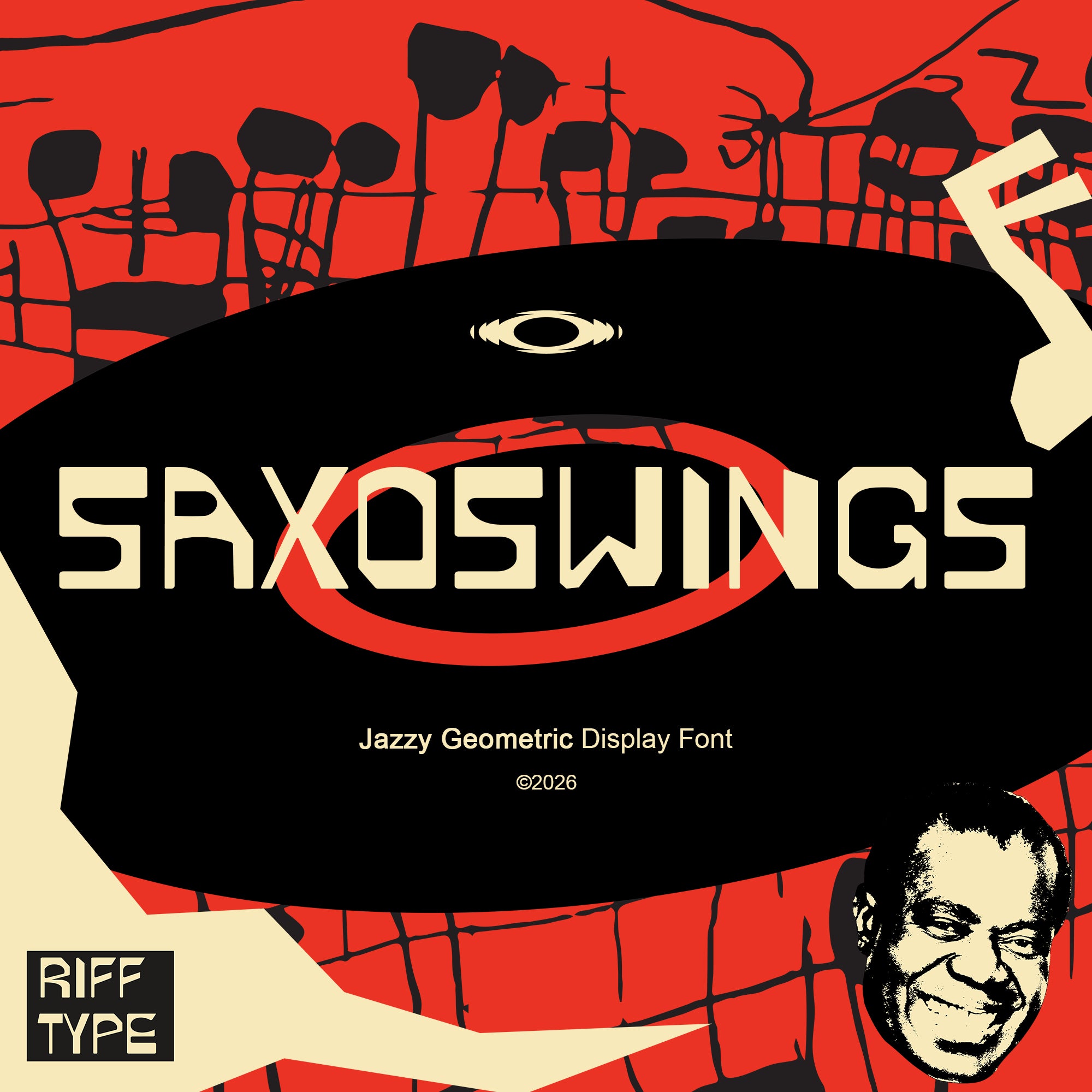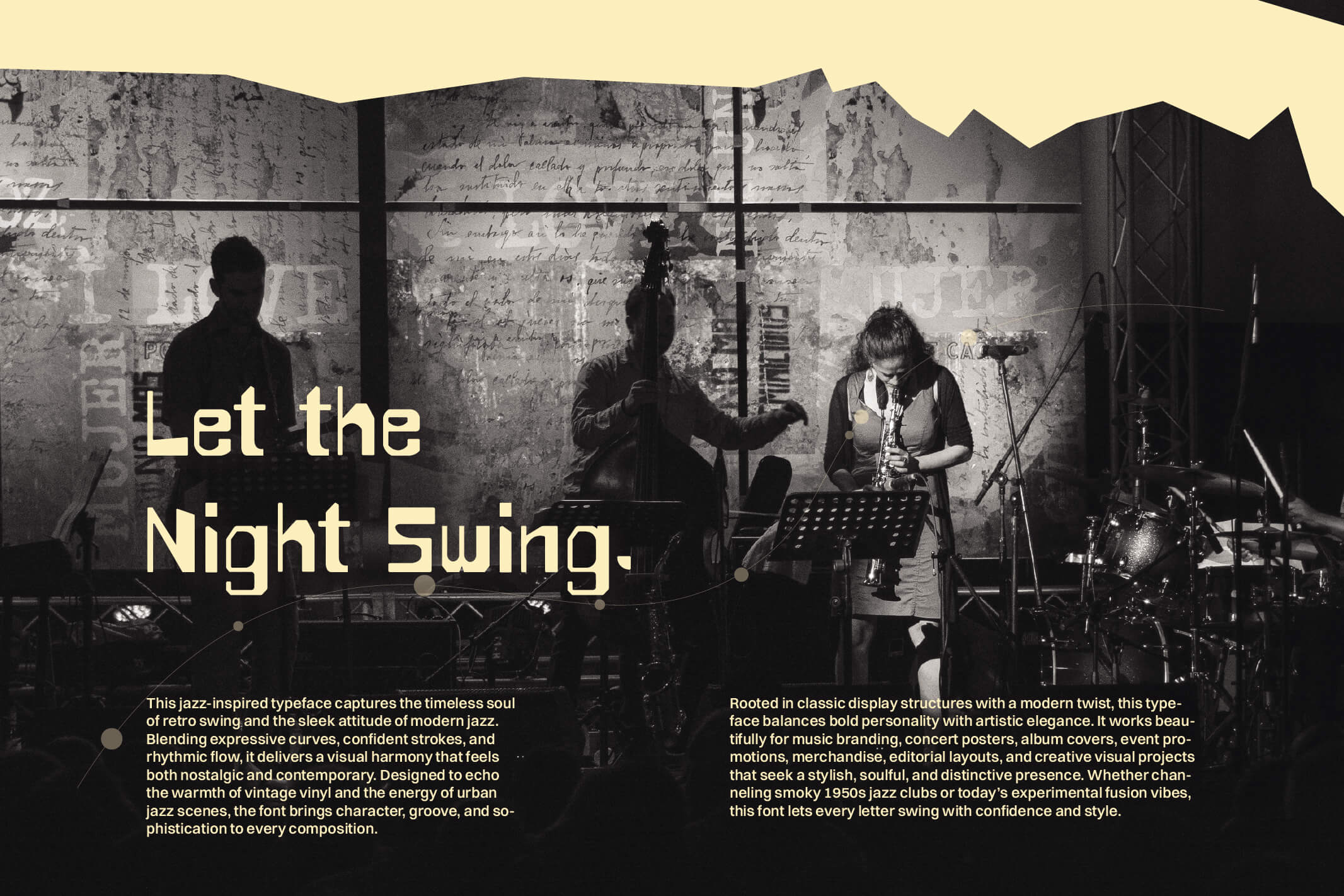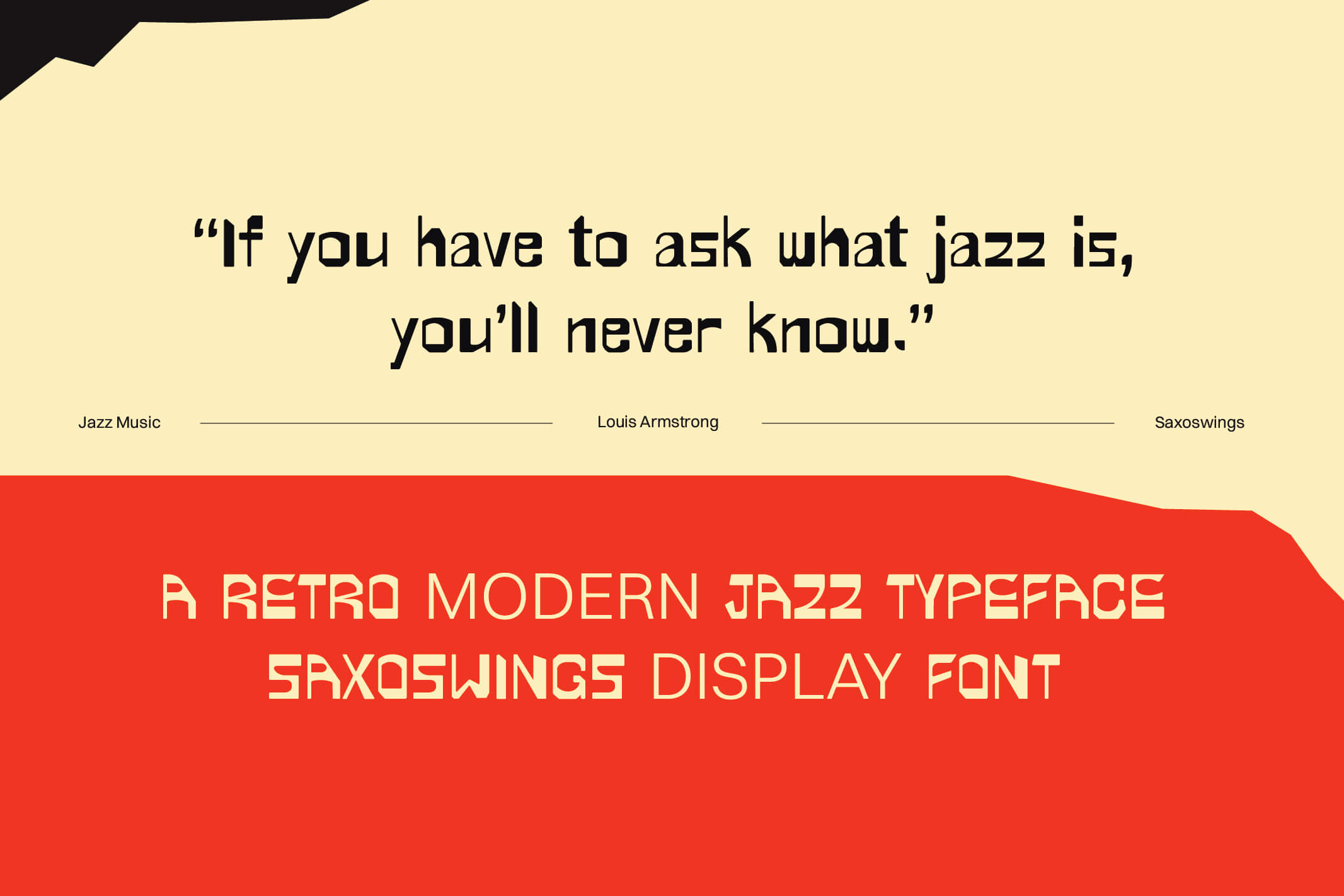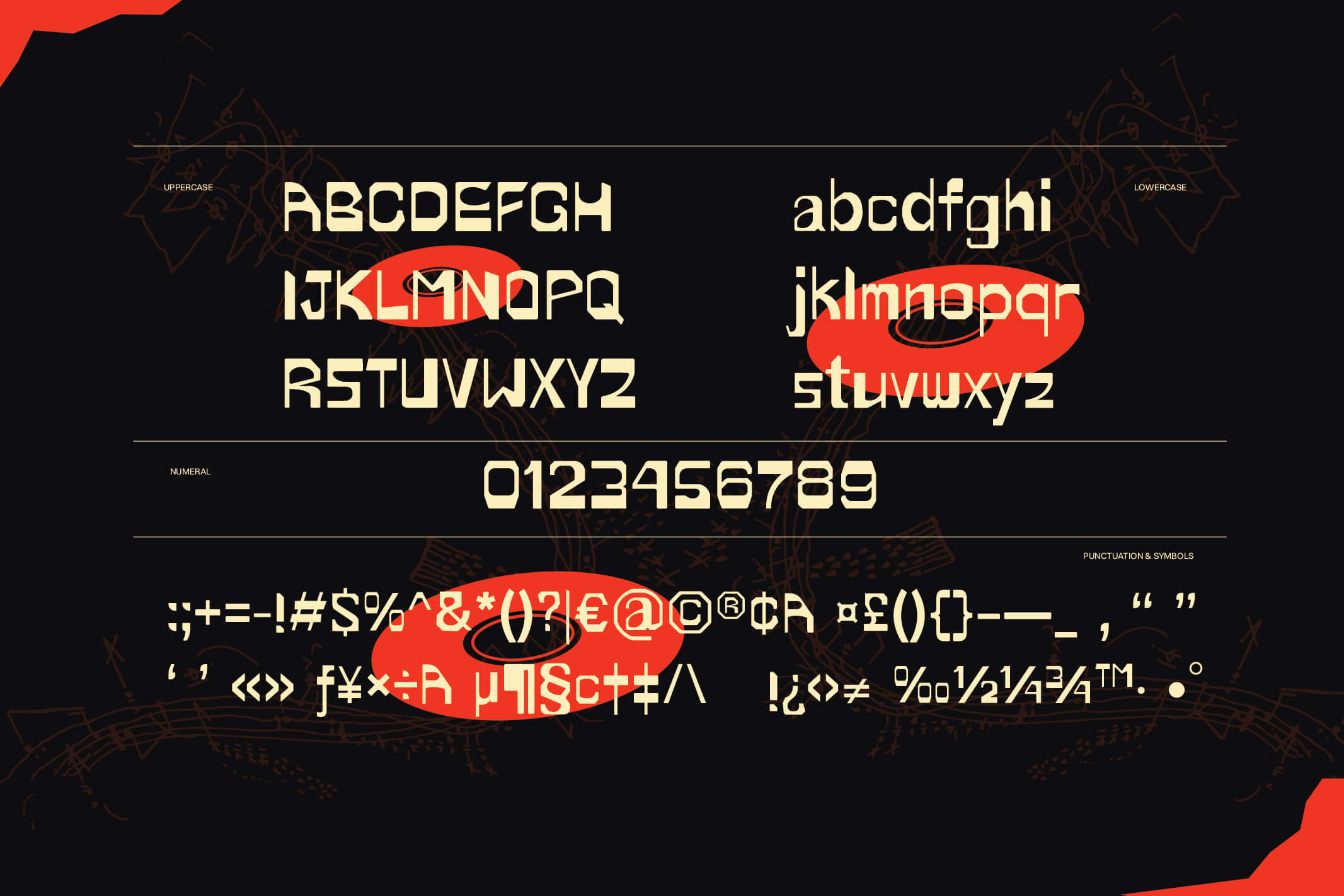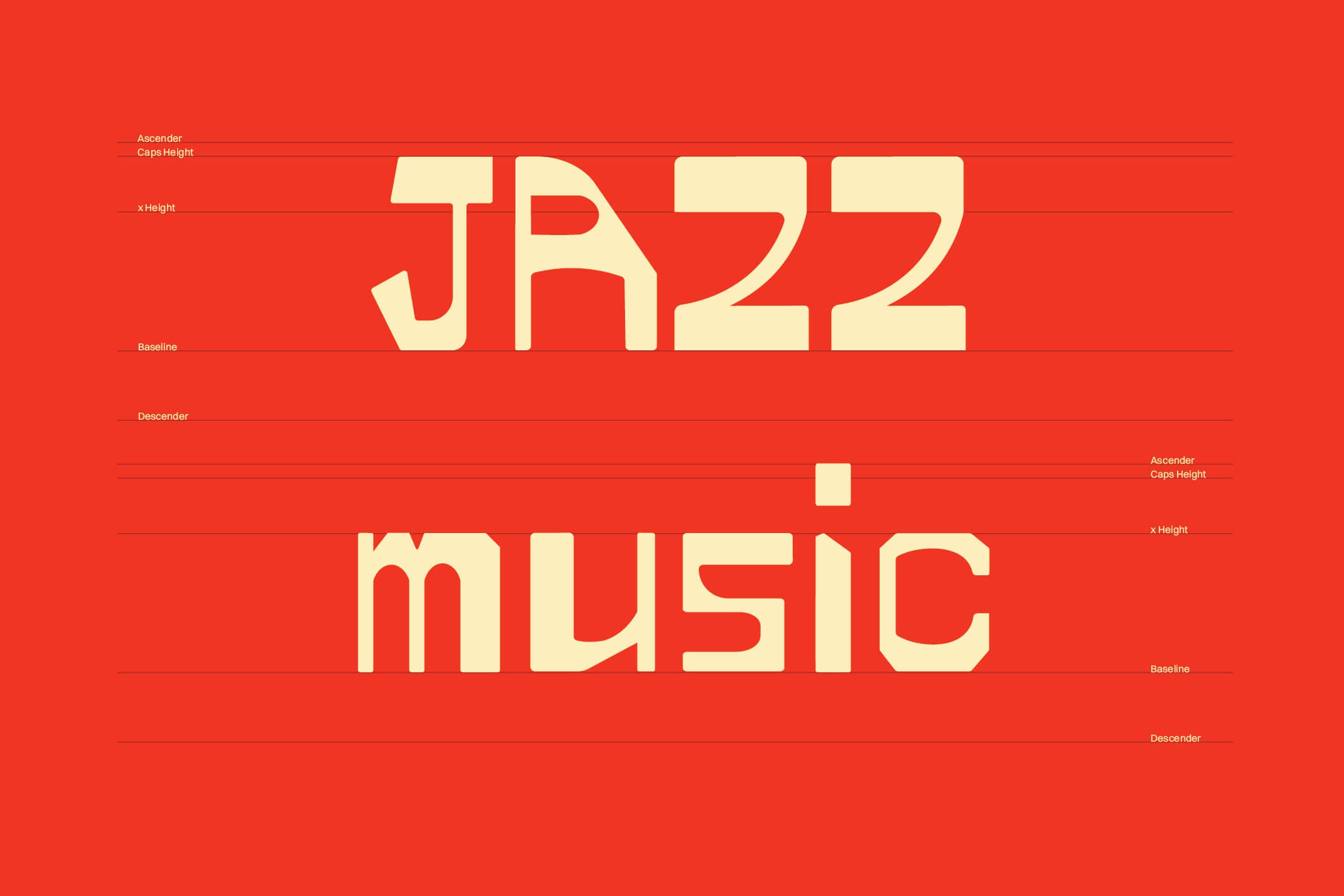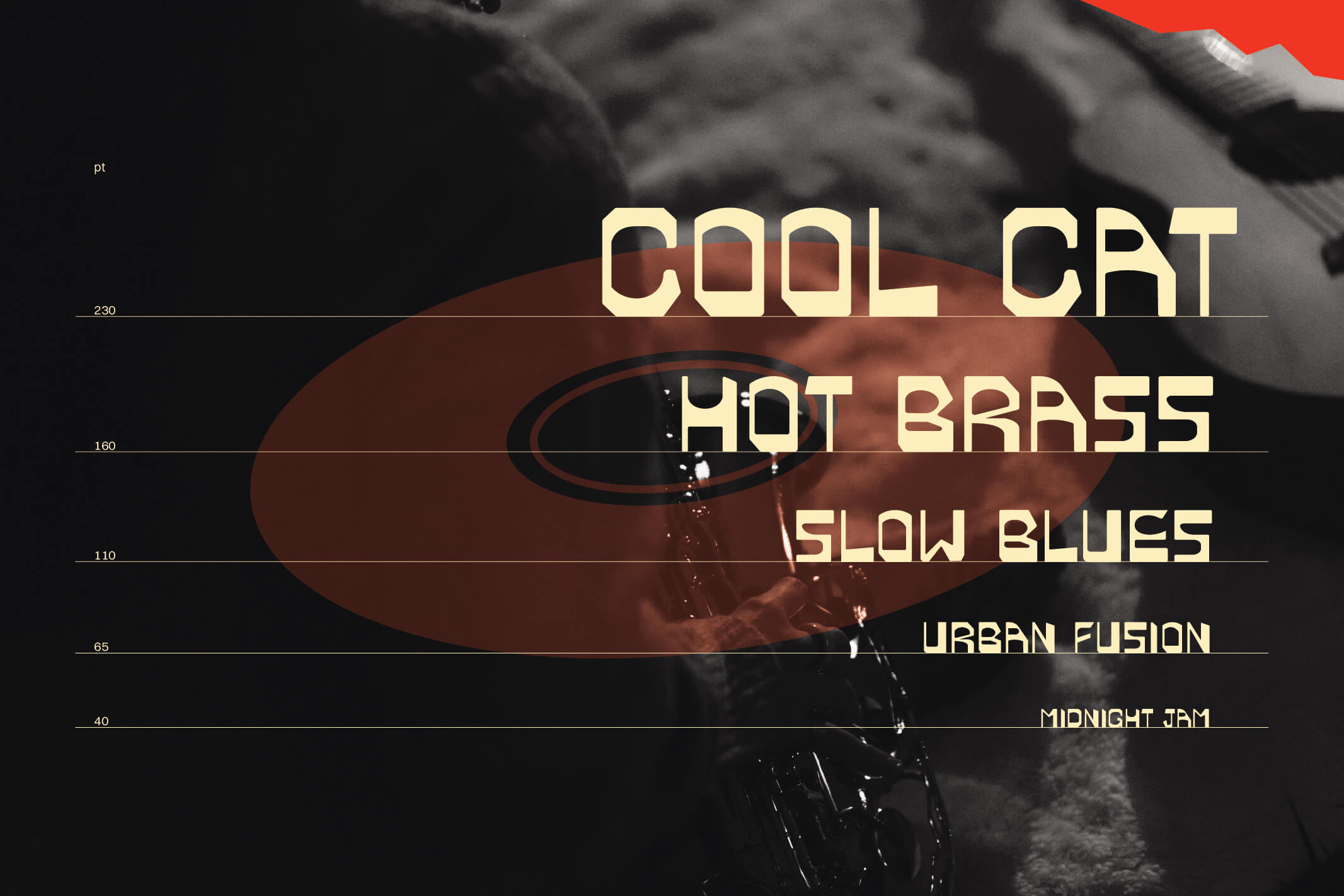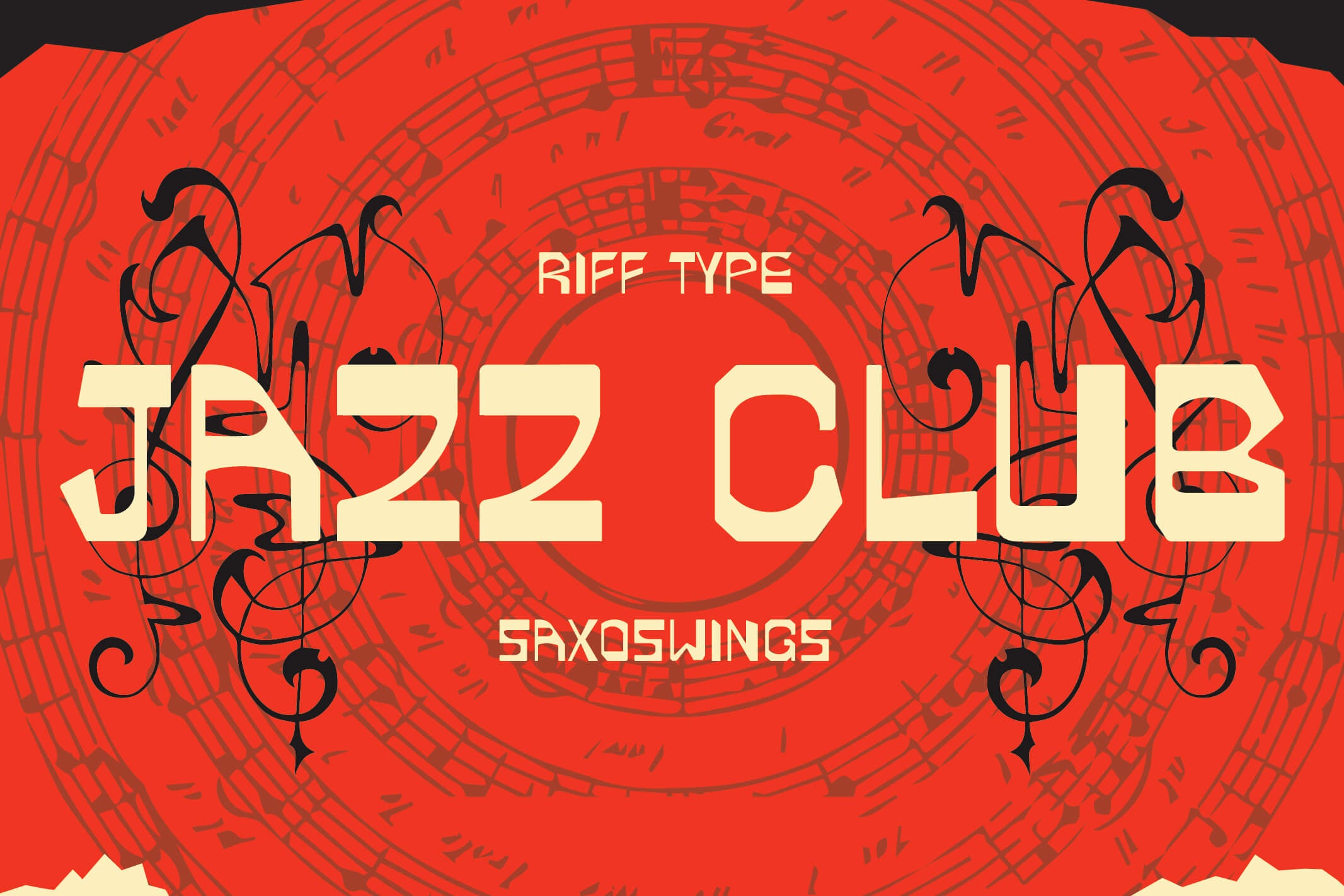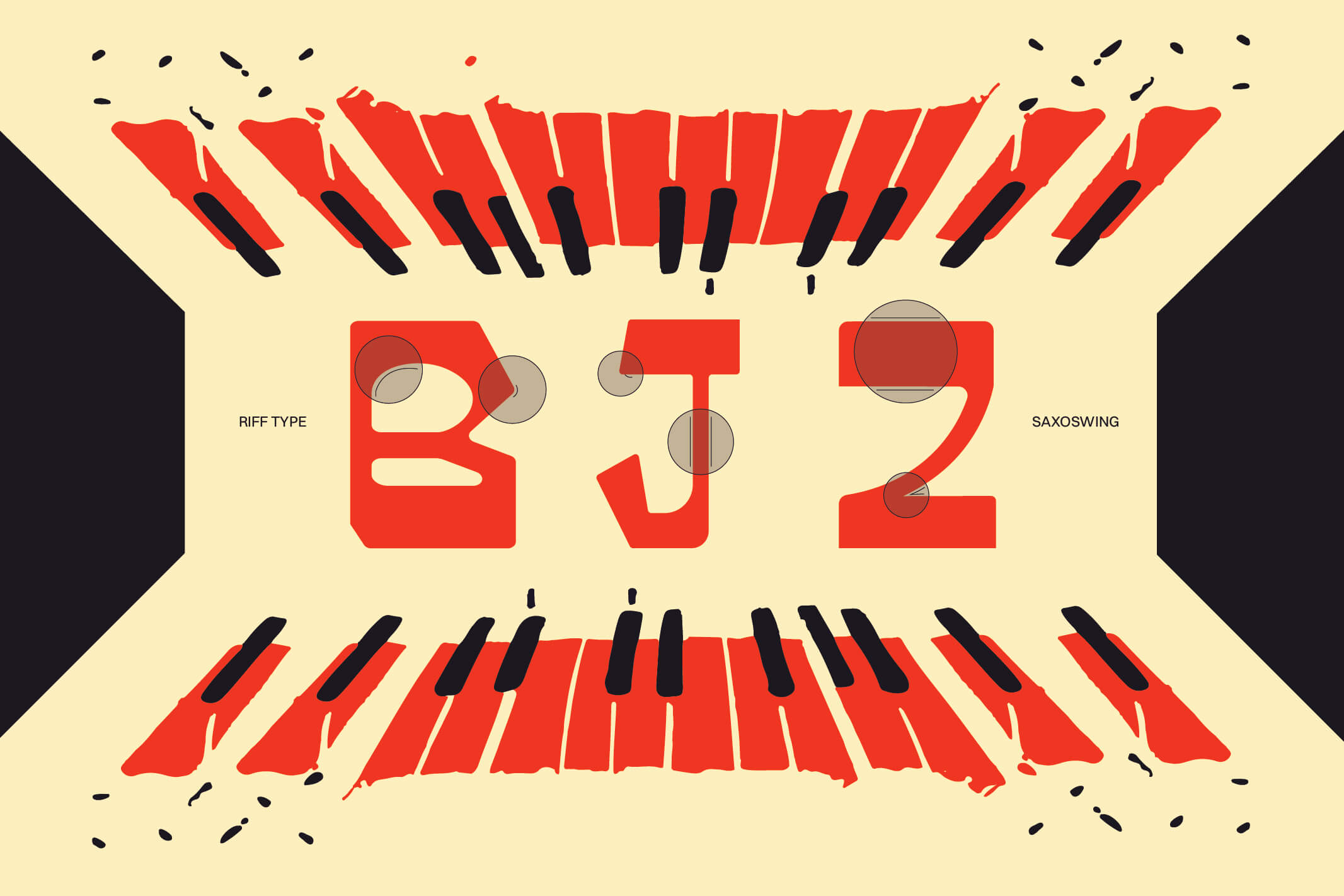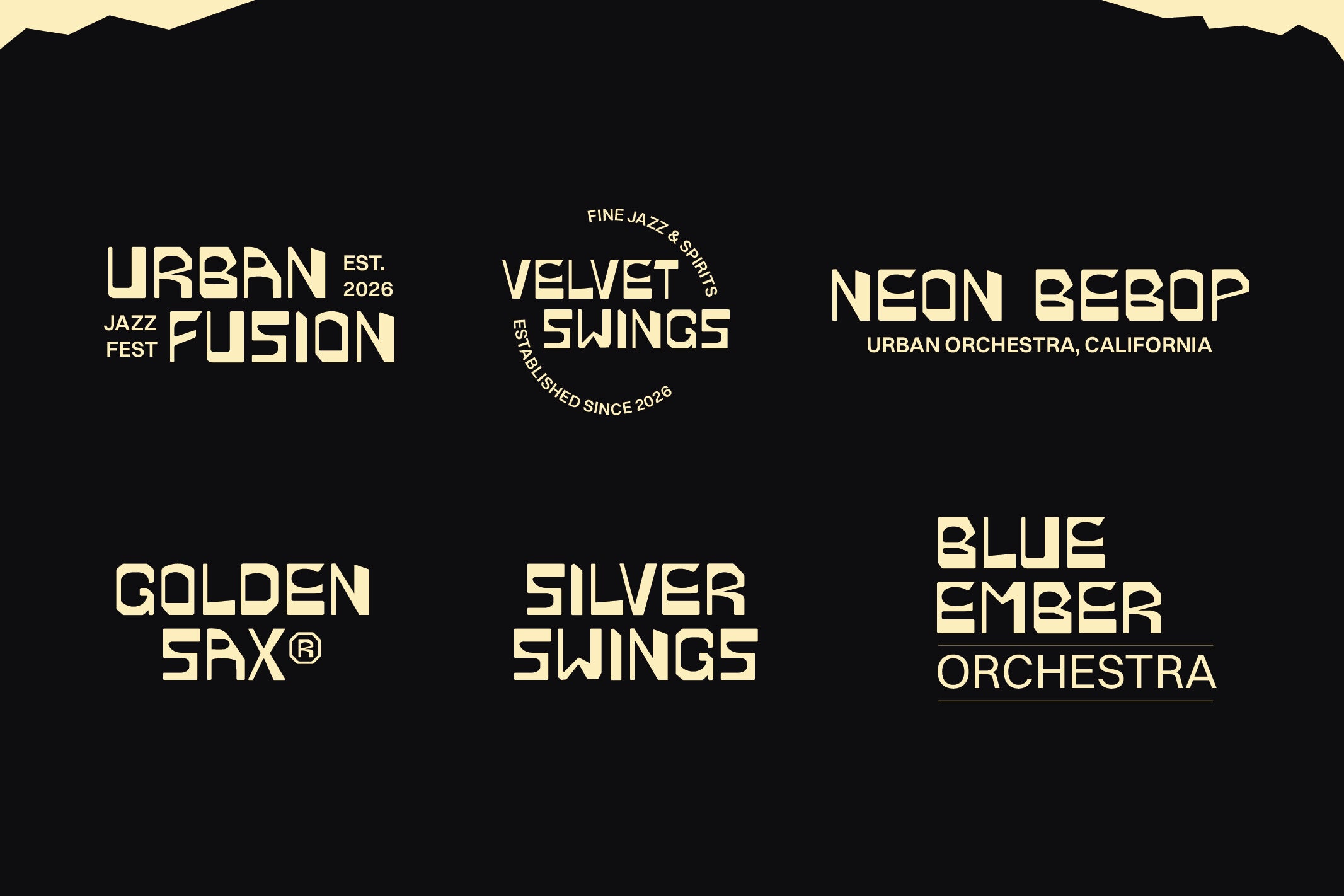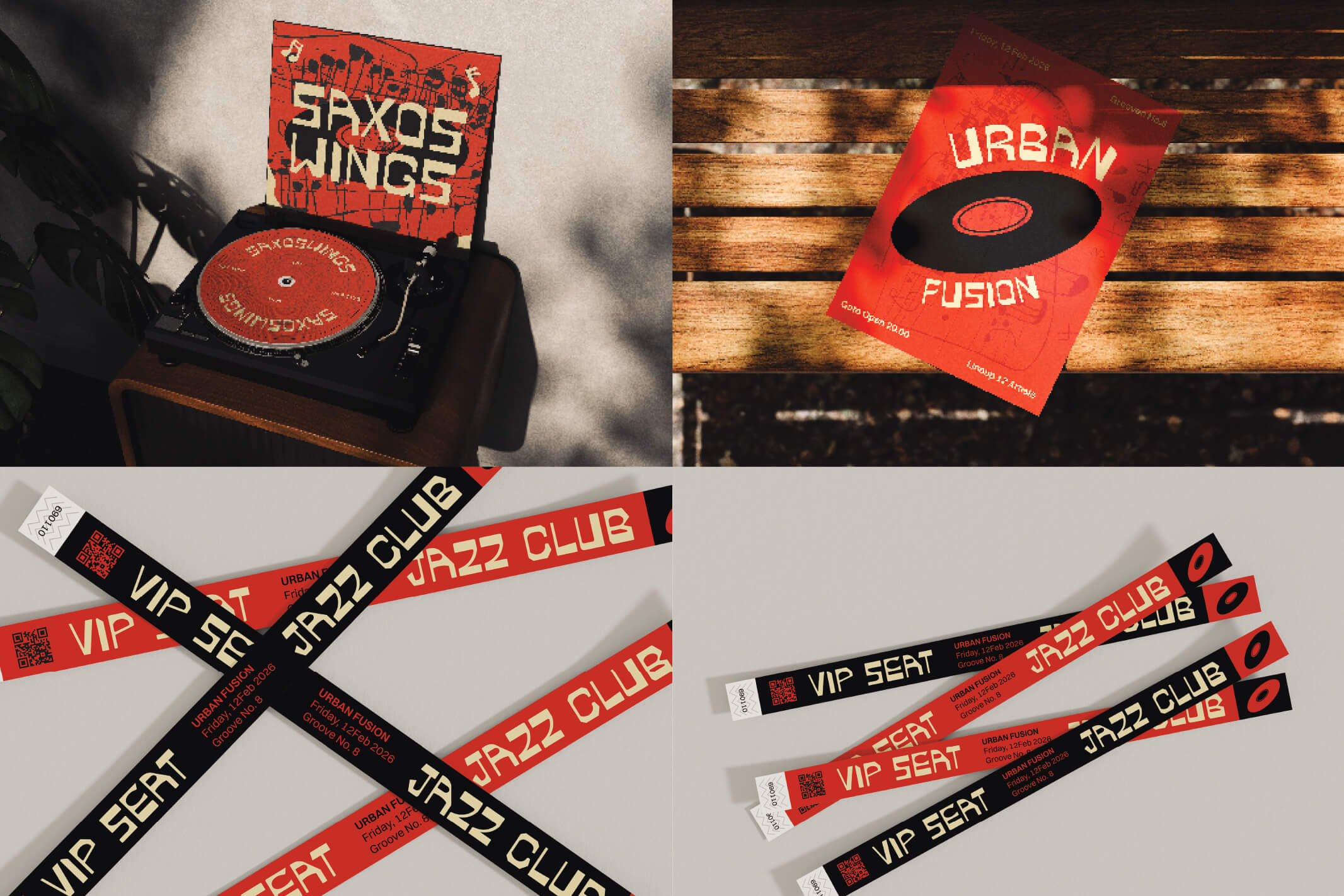
Saxoswings - Jazzy Geometric Font
Saxoswings ── A bold, geometric display font with a modern, jazzy flair. Its clean, blocky shapes and structured forms make it perfect for music-related designs, from jazz posters and album covers to flyers and merchandise.
Saxoswings is a bold, geometric display font featuring clean, blocky shapes with a modern, jazzy style. The ZIP package includes TTF, OTF, WOFF, and WOFF2 files.